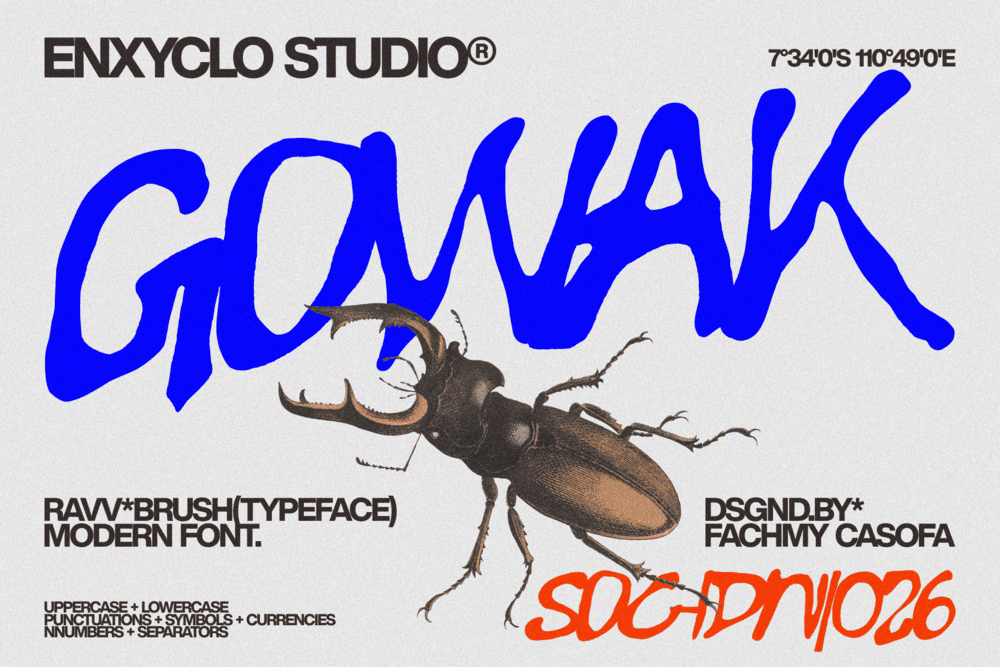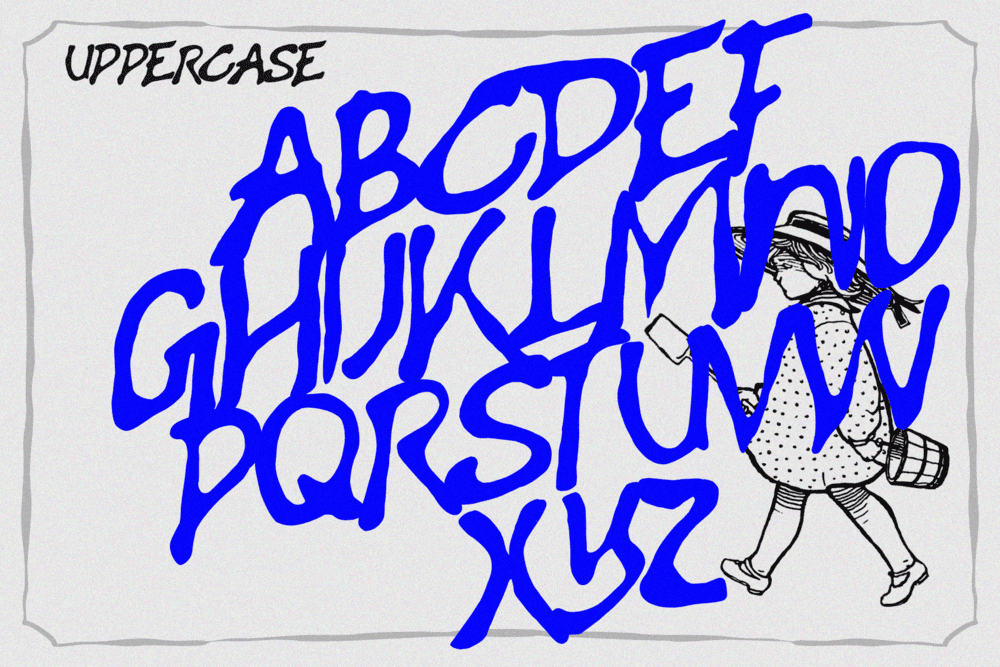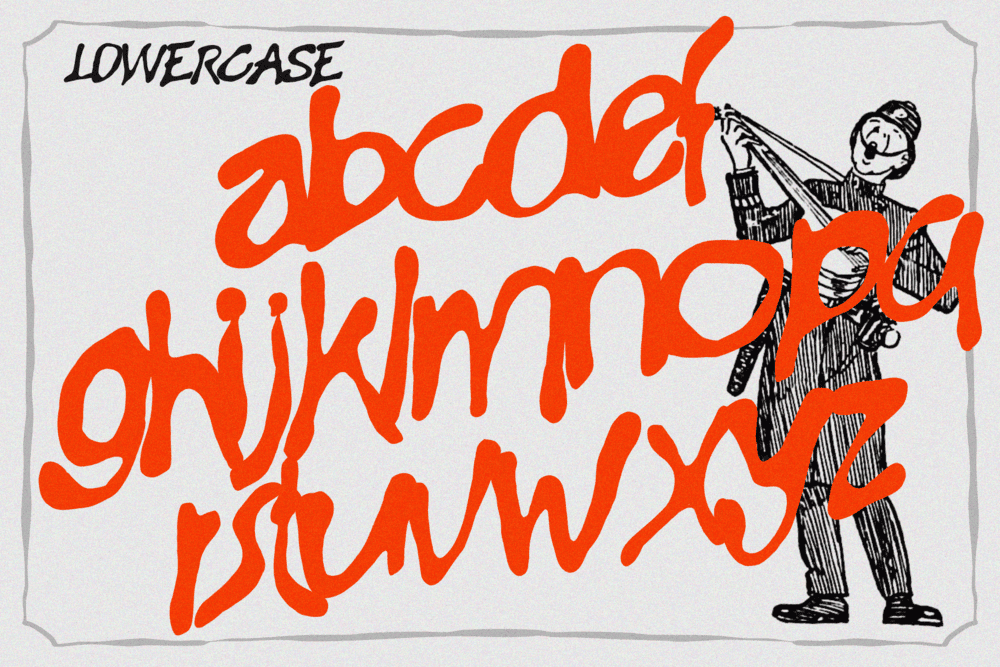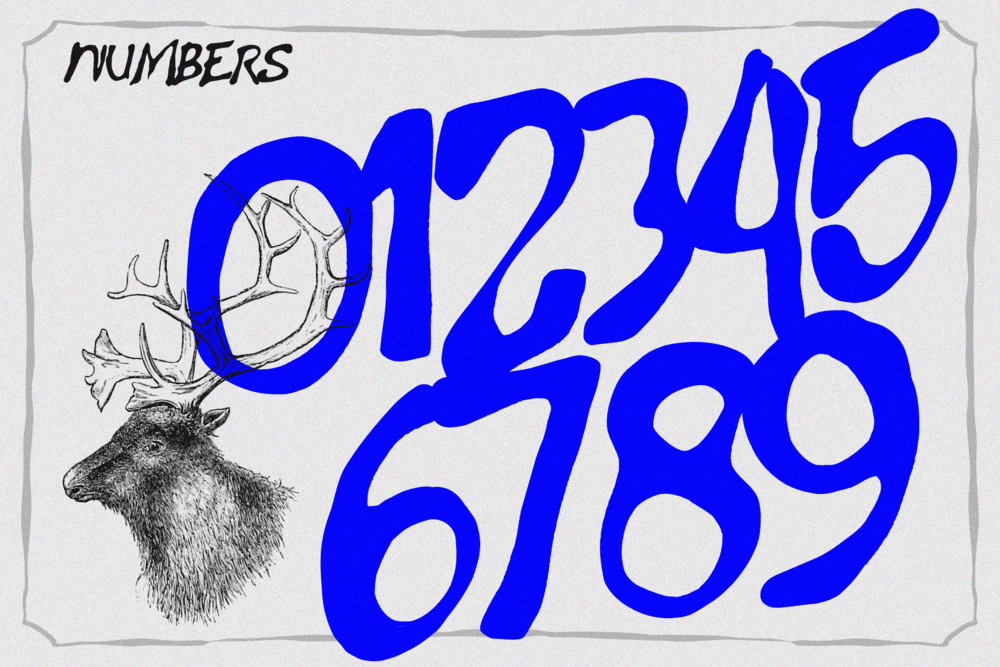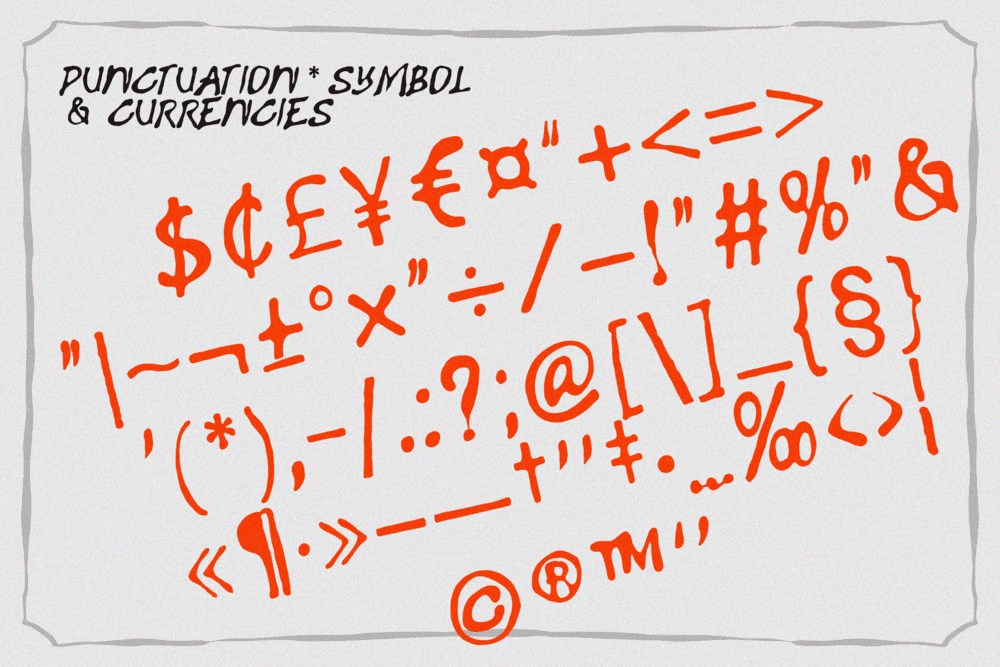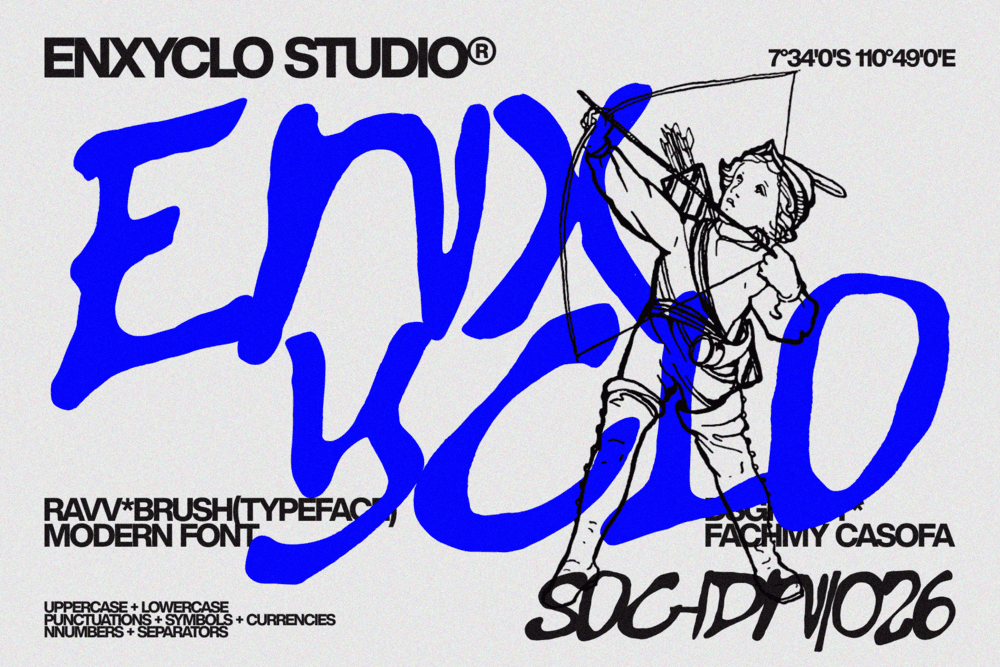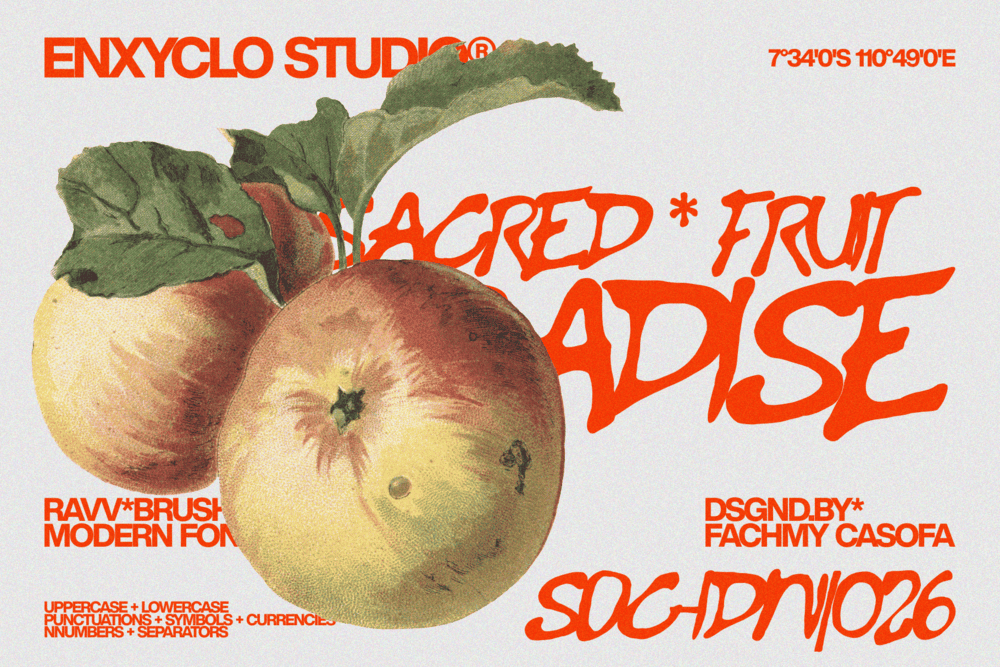
GOWAK is a bold, raw expressive brush font crafted for modern brands that want to stand out with confidence and character. Inspired by rough hand-painted strokes and expressive lettering, GOWAK blends raw energy with a clean, contemporary structure—creating a powerful balance between chaos and control. Its rough yet intentional brush texture delivers an authentic, handmade feel while staying readable and minimal enough for modern design needs. GOWAK is designed to feel bold, creative, and fearless—perfect for logos that need personality, attitude, and a strong visual voice. Whether you’re building a creative logo, agency branding, or modern logotype, GOWAK brings expressive strength and modern edge into every letterform. This font doesn’t whisper—it speaks loud, raw, and confidently.
FEATURE
• Uppercase letters
• Lowercase letters
• Punctuation marks
• Symbol set
• Currency symbols